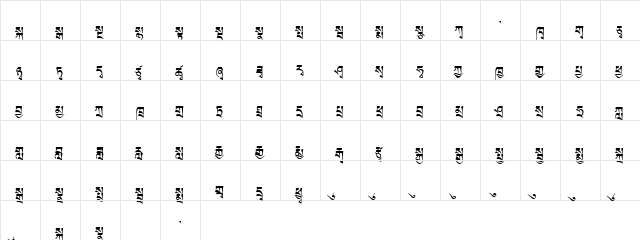
TibetanMachineWeb1 Regular
| Designer | Tony Duff |
Design Context for TibetanMachineWeb1 Typeface
TibetanMachineWeb1 offers clean, dependable letterforms without strong stylistic allegiance, making it a practical choice for designers who need flexibility.